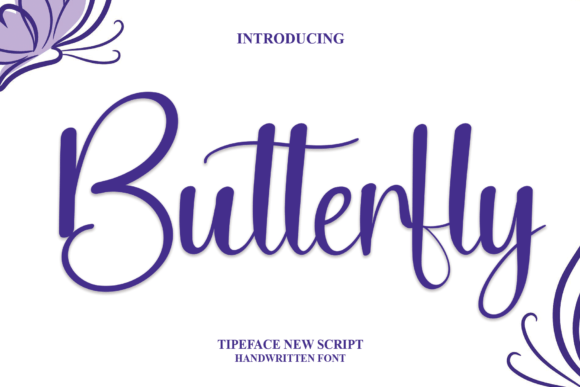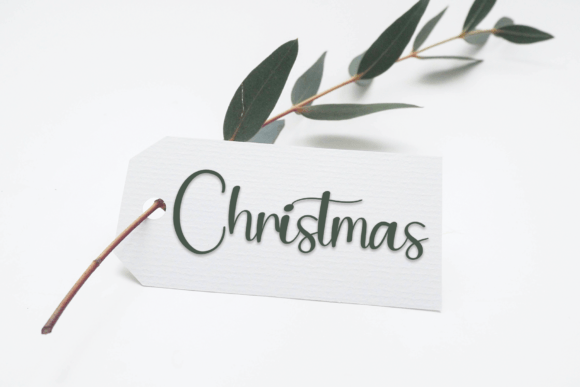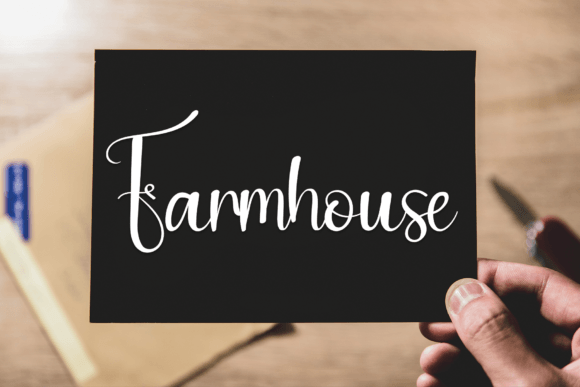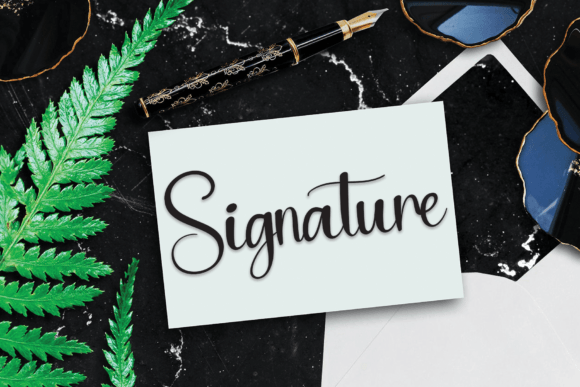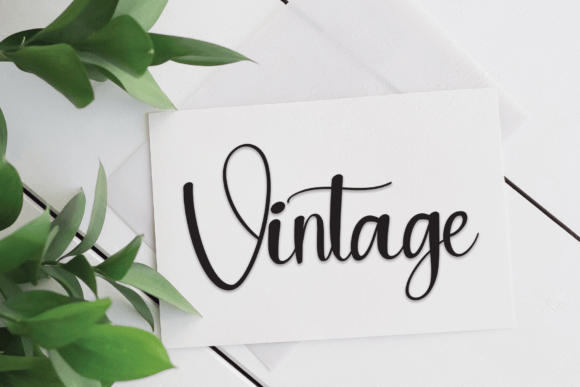
Add a charming and approachable touch to your creative projects with the Butterfly font. This simple and friendly handwritten script is designed to be your favorite font for a wide range of occasions.
The Butterfly font features clean and easy-to-read strokes that bring warmth and friendliness to any design. Its versatility allows it to be used across multiple creative fields, helping your projects feel personal and inviting.
You can apply the Butterfly font to crafts, digital designs, presentations, and card-making. Its friendly style works well for projects that aim to connect with audiences through a natural, handwritten look. This font is an excellent choice for those who want a casual yet neat handwritten script.
Using the Butterflyfont will add a friendly and genuine character to your projects.
In summary, the Butterflyfont is a simple, friendly, and versatile handwritten script. Perfect for crafts, digital designs, presentations, and greeting cards, it brings warmth and personality to every project. Download it today and make your designs more inviting with Butterfly.